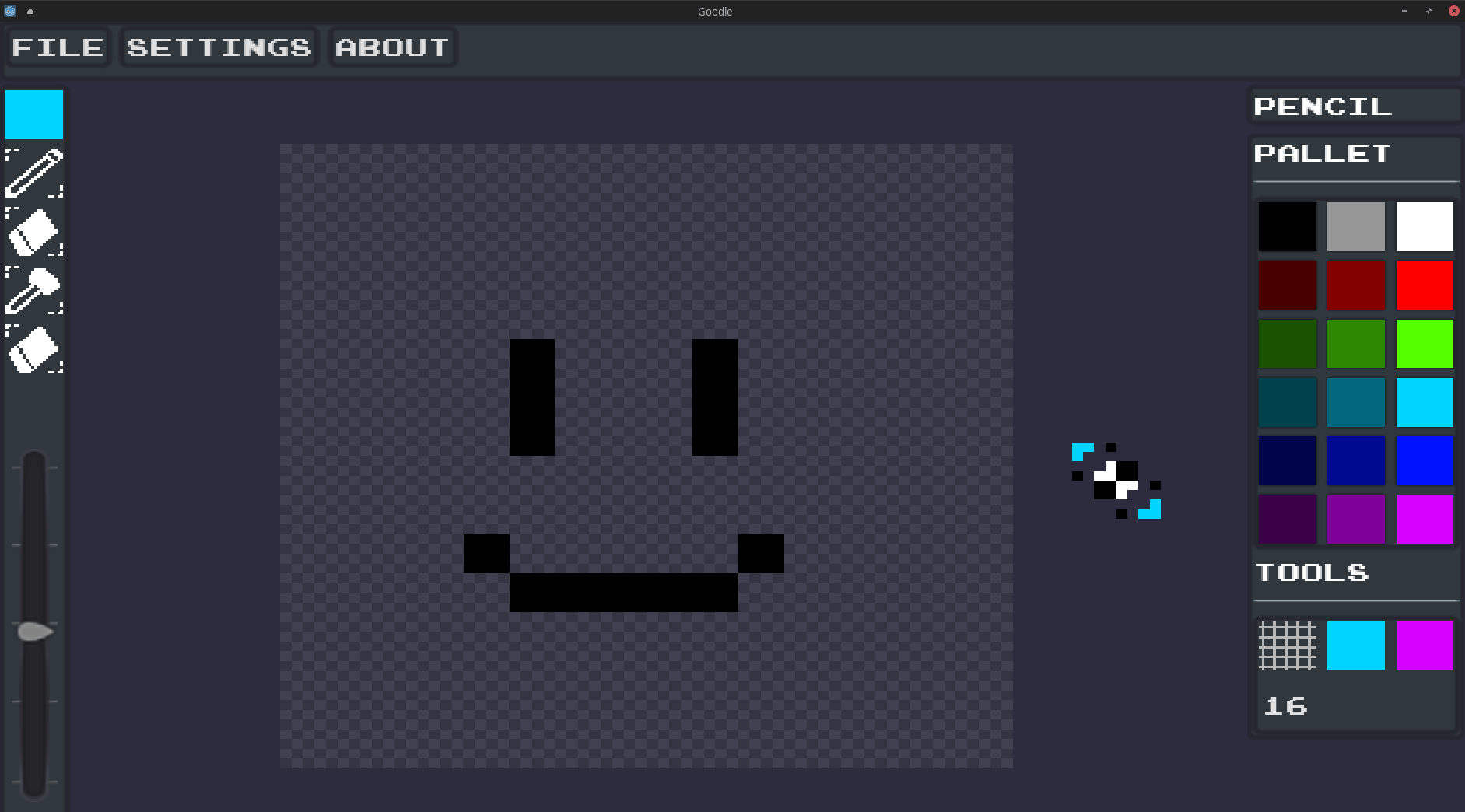
Pixel App Font Download
Pixel App Font Download. Pixilart is an online pixel drawing application and social platform for creative minds who want to venture into the world of art, games, and programming. Pixellab is an image editor that can allow users to easily add a variety of text elements to the photos they take.
Z Y M M Silkscreen Jason Kottke 4 Styles.